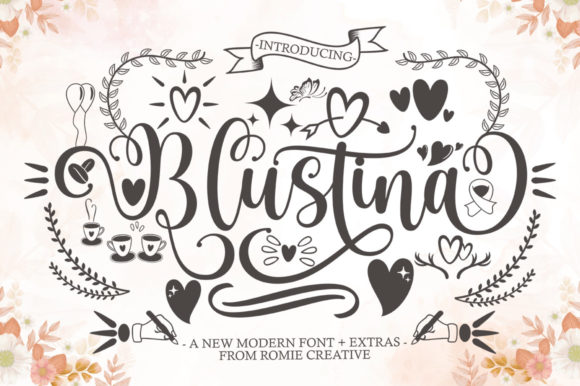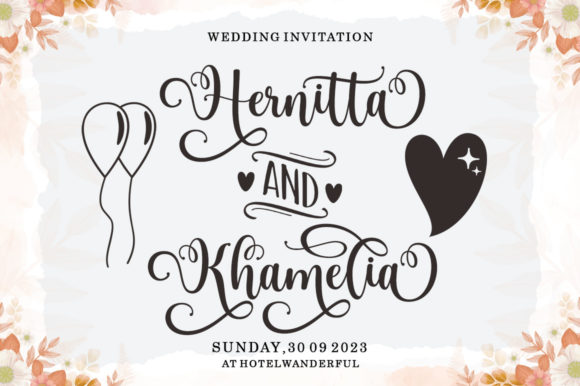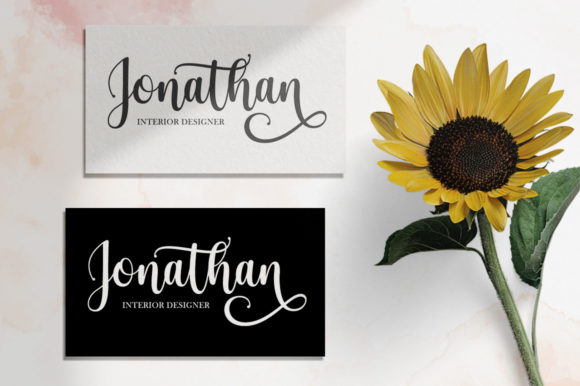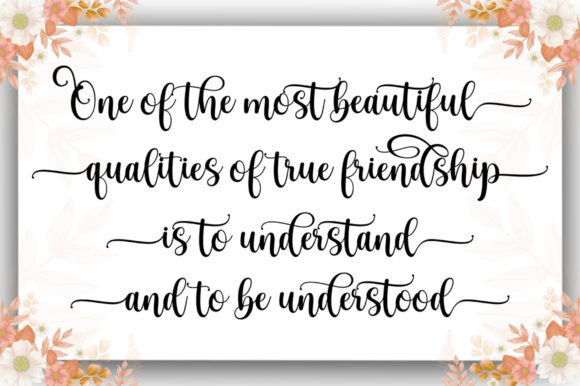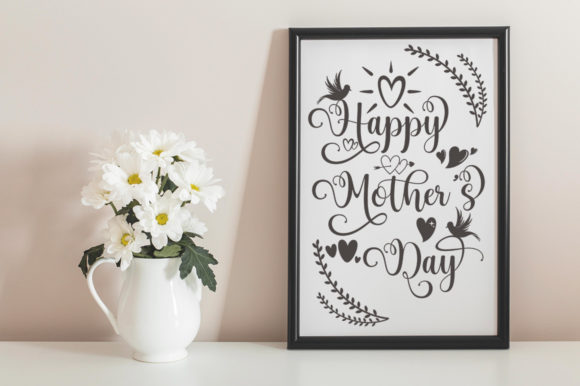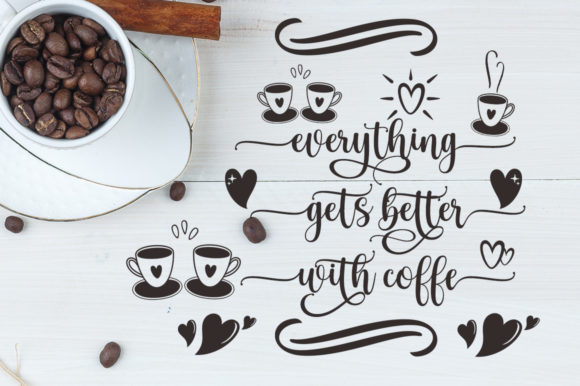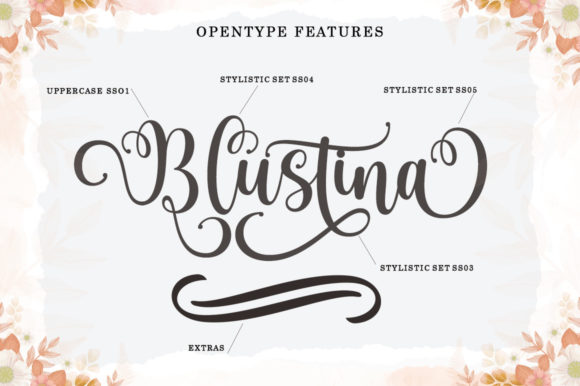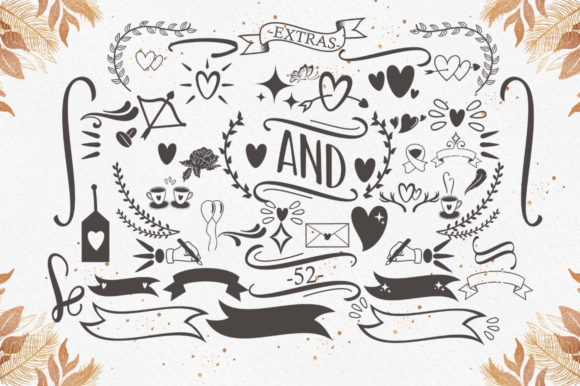
Blustina Script Font
About Blustina Script Font
Blustina Script is a dazzling script font. It will add a luxury spark to any design project that you wish to create! This font is PUA encoded which means you can access all of the amazing glyphs and ligatures with ease!